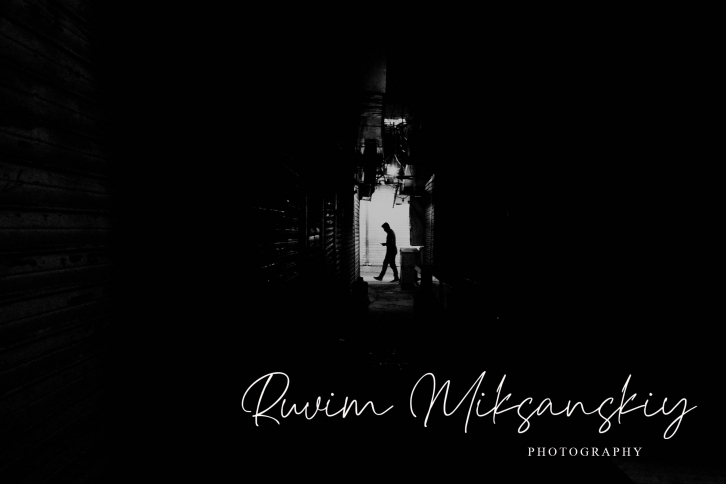
Haverink Script you can applied to logos, product, display, clothing, quotes and many more. You can applied to all typography with mix and match pairs of letters to fit your own designs. All font files are provided in both TTF & OTF font formats. I recommend installing the TTF, and the OTF only if necessary.